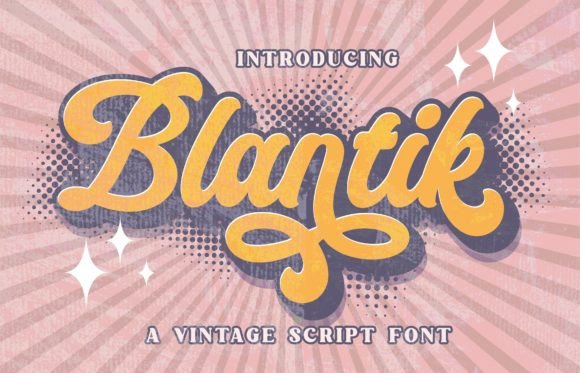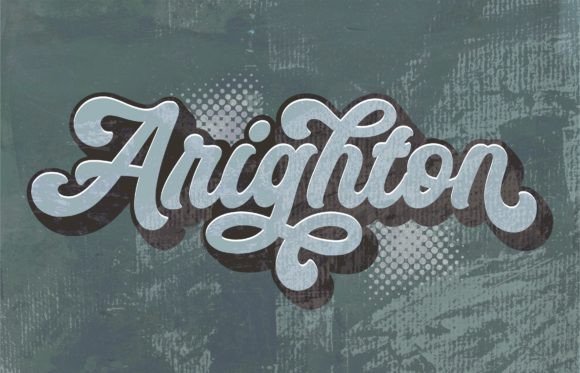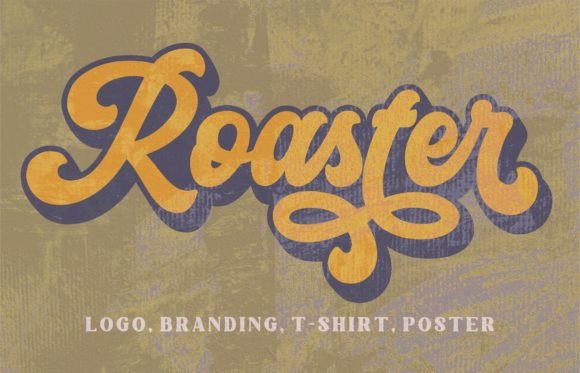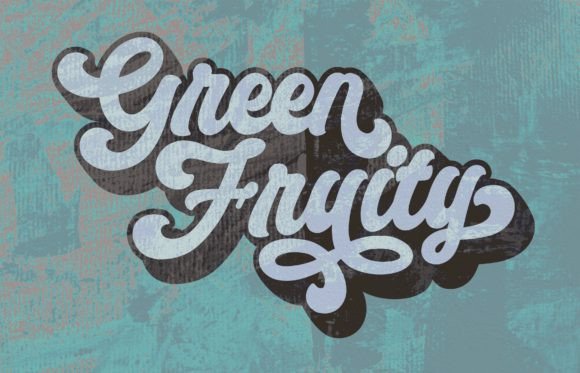
Blantik Font: Retro Script for Vintage Branding & DIY Projects
About the Blantik Font
Discover the charm of Blantik Font. This font is a perfect blend of modern aesthetics and classic appeal. Blantik is a vintage script font that exudes style and sophistication. Its elegant curves and flourishes bring to mind the glamour of a bygone era. Perfect for invitations, branding, and editorial design, this font will add a touch of class to any project.
Blantik’s elegant flourishes make it ideal for headlines, logos, and short text blocks in branding materials, invitations, and packaging where its vintage charm adds a touch of sophistication. However, its ornate nature makes it unsuitable for body text or UI elements; the intricate details become illegible at smaller sizes and hinder readability in longer passages.
Pairing Blantik effectively requires considering its vintage style. A clean sans-serif like Montserrat or a geometric sans-serif like Futura would provide a contemporary counterpoint, balancing the script’s ornate feel. For a more traditional approach, a classic serif like Garamond or Didot offers a harmonious pairing that maintains a sense of timeless elegance.
Blantik projects a refined, slightly nostalgic personality— elegant yet approachable. It’s best suited for brands aiming for a sophisticated, perhaps slightly retro aesthetic, evoking a sense of quality and heritage.
Blantik Font Example